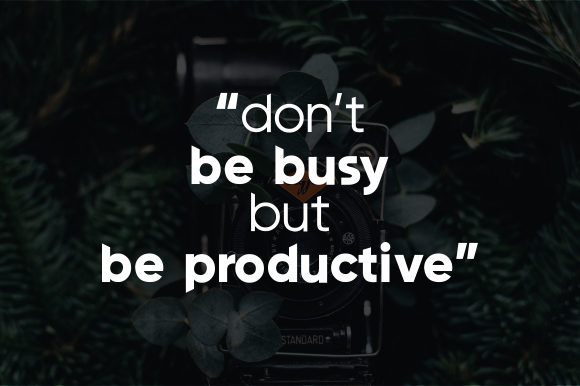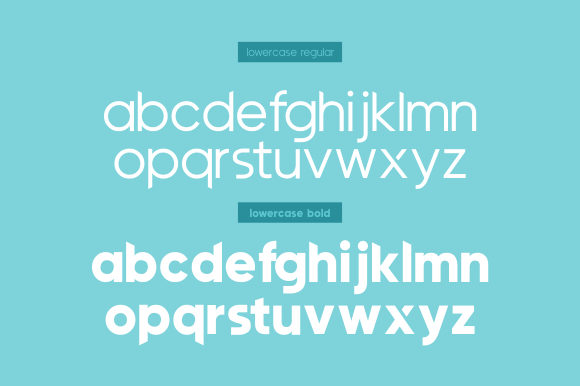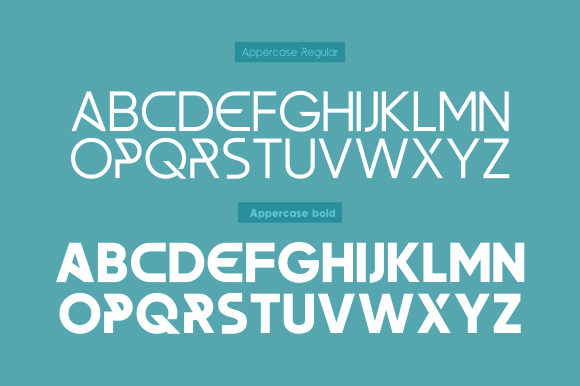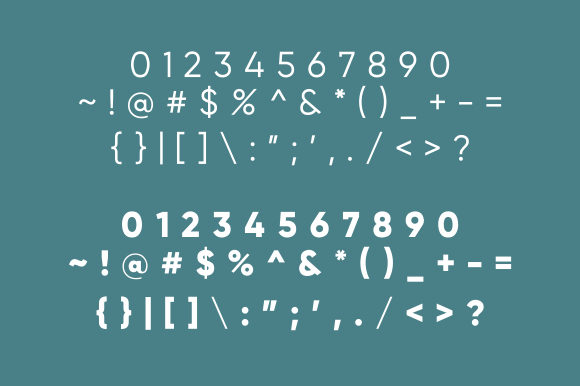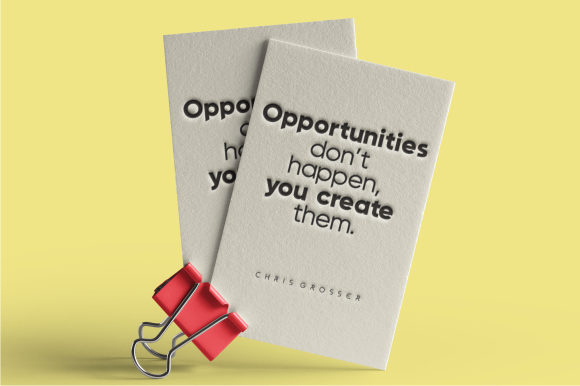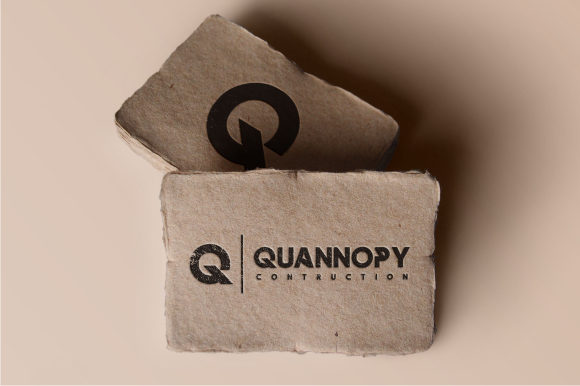
The Birth of a Galactic Typography
Have you ever stared up at the night sky, feeling a spark of creativity ignite within you? For designers, this spark is often the starting point for a new project, a new idea, or a new font. The Andromeda Font is one such creation that was born from the desire to push the boundaries of typography and create something truly out of this world.
With its sleek, futuristic design, the Andromeda Font is the perfect tool for designers who want to deliver a message with confidence and style. This elegant sans serif font comes in two distinct weights, making it a versatile choice for a wide range of projects. Whether you’re working on a futuristic sci-fi novel or a sleek tech startup, the Andromeda Font is sure to elevate your design to new heights.
For designers, the Andromeda Font offers a valuable opportunity to add a touch of sophistication and elegance to their work. Its clean lines, modern aesthetic, and versatility make it a must-have for any design project.
Andromeda Font Key Features
- Font Size: The font family includes 12 weights, ranging from Thin to Extra Bold, providing designers with a versatile range of font sizes to suit their needs.
- Unique Characteristics: The font features a unique blend of geometric and organic elements, resulting in a distinctive, futuristic aesthetic that is both modern and timeless.
- Language Support: Andromeda Font includes comprehensive language support, covering over 200 languages, making it an ideal choice for designers working on multilingual projects.
- Kerning and Glyphs: The font includes advanced kerning and glyph sets, ensuring precise letter spacing and optimal readability in a wide range of typography settings.
Designer Review: Andromeda Font
First impressions matter, and the Andromeda font is no exception. It’s a visually striking font that can instantly elevate any design project. The combination of clean lines, rounded edges, and subtle flair makes it a versatile choice for various design applications. ✨
- Unique aesthetic that stands out in a crowd
- Highly legible, making it perfect for body text
- Supports multiple languages, including Cyrillic and Greek
- Comes in a range of weights and styles for added flexibility
However, as with any font, there are some limitations to consider. ⚠️ The Andromeda font may not be the best choice for small-scale text, as the rounded edges can make it appear blurry or pixelated at low resolutions. Additionally, some users may find the font’s flair too ornate for certain design projects.
Overall, the Andromeda font is a solid choice for designers looking to add a touch of elegance and sophistication to their projects. While it may not be the best fit for every design application, its unique aesthetic and high legibility make it a great addition to any font library.
For a cohesive look, pair the Andromeda Font with a clean and minimalist design aesthetic.
- Use the font’s unique characteristics to add depth and visual interest to your design.
- Use the font’s clean lines and modern feel to create a visually appealing presentation or document.
The Andromeda Font is ideal for:
- Modern branding and identity design.
- Corporate communications and presentations.
- Editorial and publishing design.
- Web design and development.
Remember to use the font consistently throughout your design to create a cohesive and recognizable brand image.